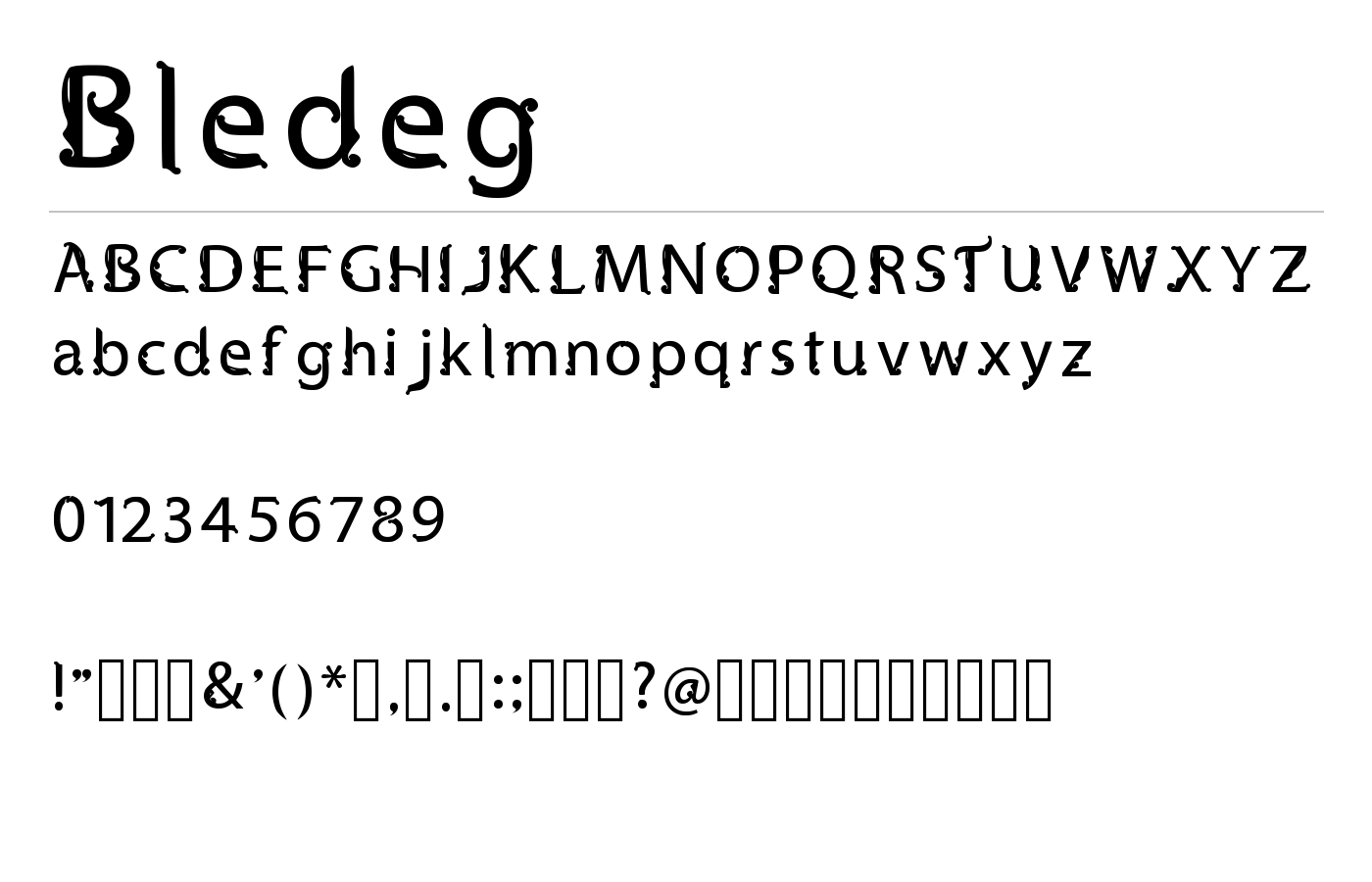
Bledeg is a quirky serif font with a vintage, almost hand-drawn feel that combines irregular stroke shapes and a playful, slightly rough texture. Its medium weight and moderate contrast make it distinctive yet readable, suited for creative branding, posters, and editorial projects that want to convey character and a touch of old-world charm. This font works best in display uses where its unique details can stand out and add personality.
Bledeg Font
About Bledeg Font